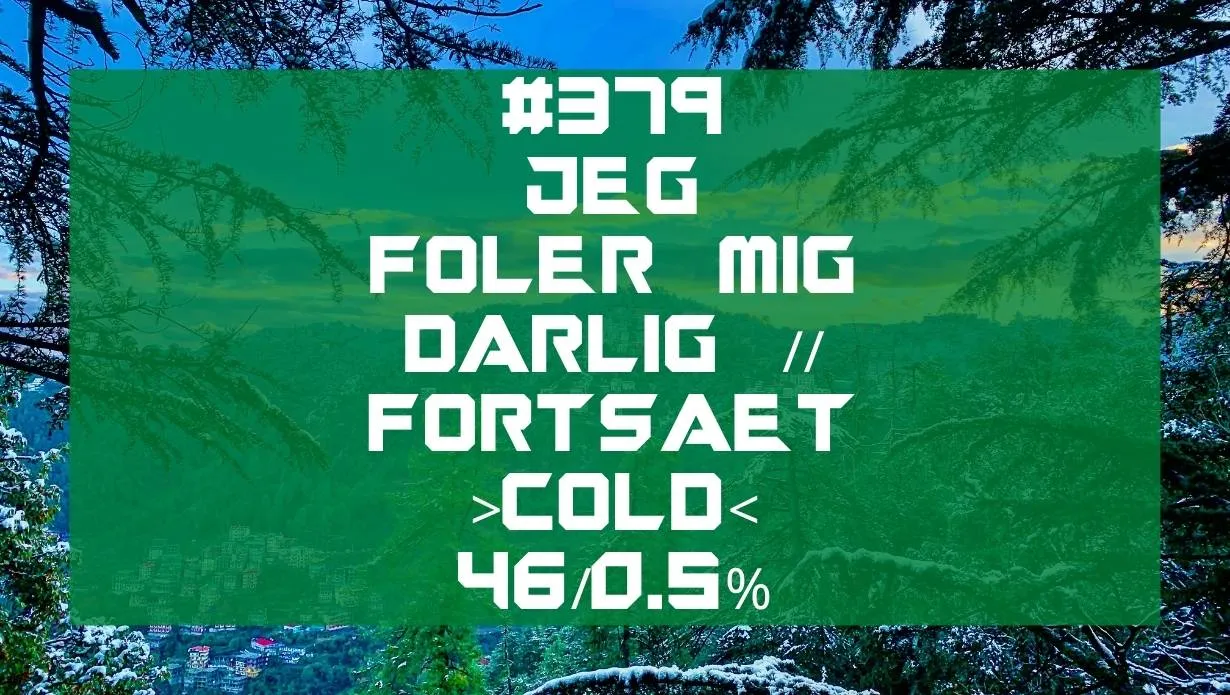
Guardians of the galaxy Font is a typeface that was designed by comic book artist and designer Dan Mora. It was first released in 2014 as part of Marvel’s “guardians of the galaxy” comics series and has since been used in other media related to the franchise.
If you’re looking for a fun, eye-catching font to use in your next project, This Font is a great option. Its whimsical design is sure to stand out, and it’s perfect for projects that need a touch of personality. This font is very close to the Rust Font.
View of Guardians of the Galaxy Font
| Designer | Dan Mora |
| Style | Display |